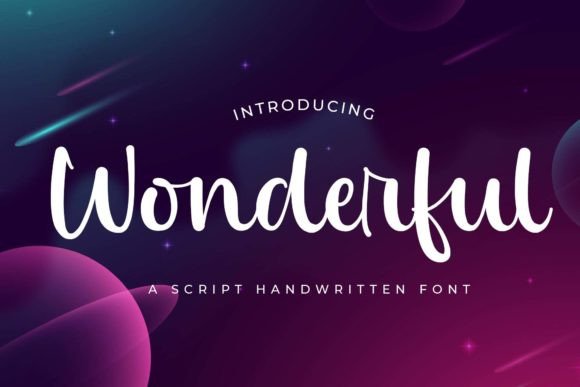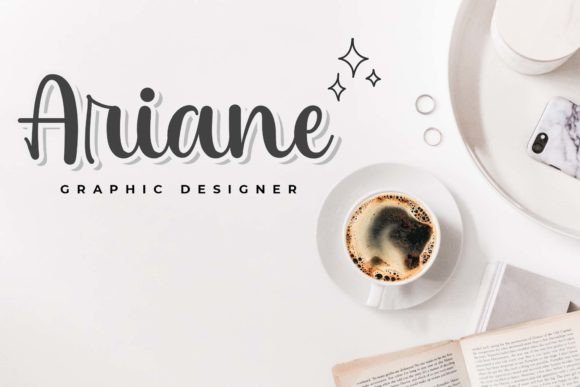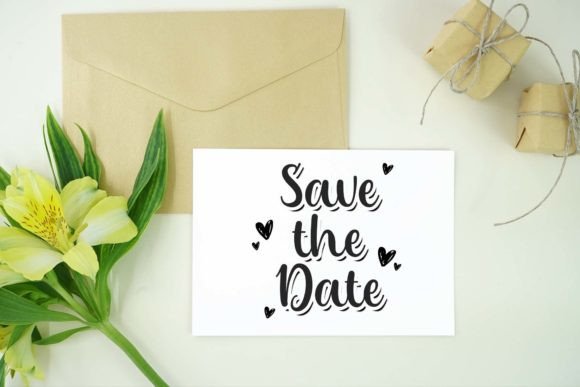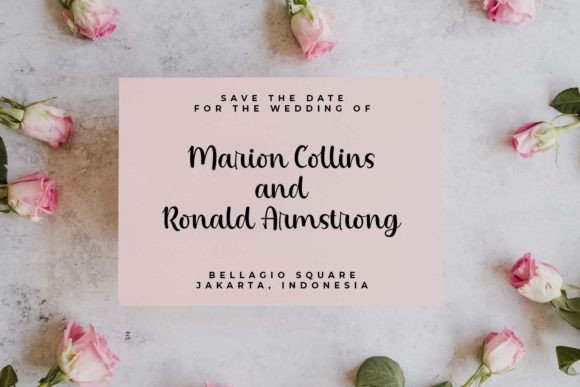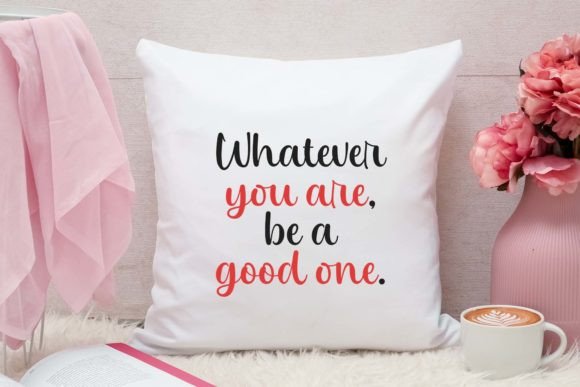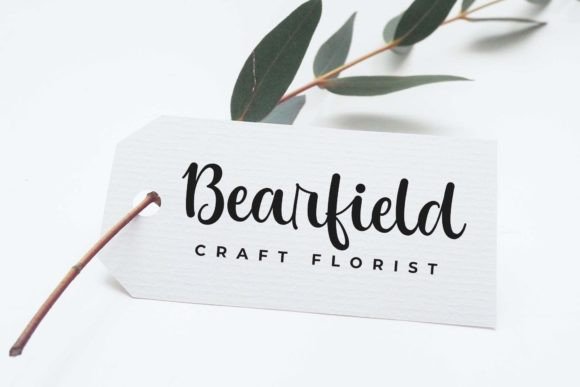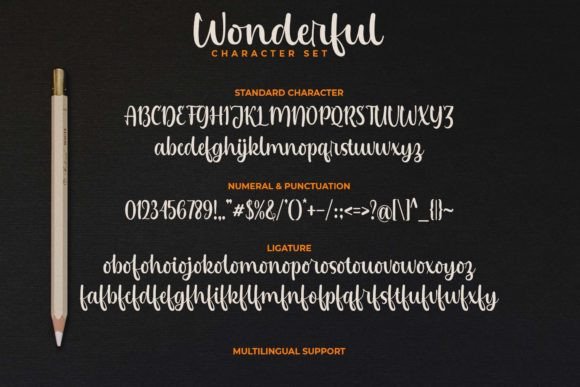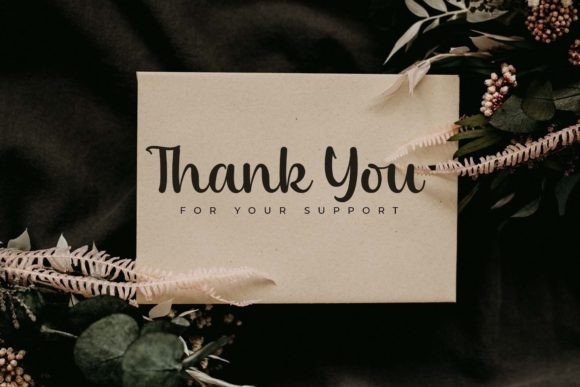
Wonderful Font
About Wonderful Font
Wonderful is a stylish and fun handwritten script font. Its distinct and well-balanced letters make this font a masterpiece. Fall in love with its incredibly versatile style and use it to create spectacular designs! This font is PUA encoded which means you can access all the glyphs and ligatures with ease!